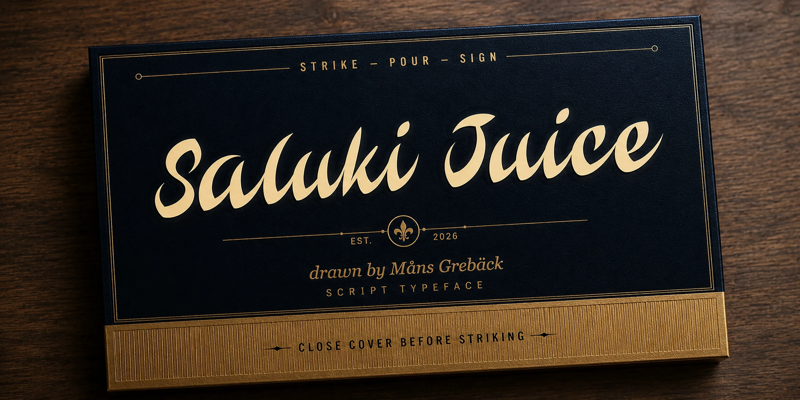
Saluki Juice
Font familySaluki Juice
CreatorMåns Grebäck
NOTE: This font is for PERSONAL USE ONLY! To purchase a commercial license, visit: https://www.mansgreback.com/product/saluki-juice Saluki Juice is a sharp-tipped script with a quick, confident hand. The letters lean forward and run together where they want to, breaking apart where the brush lifts. Strokes are sharp at the entry and tapered at the exit, with the contrast you get from a flat brush turning under pressure. With letters are reminiscent of thorns, it reads best at the size where you'd write it yourself: across the front of a market stall, on the side of a bottle label drawn in a single sitting, on a flyer that doesn't want to look printed. For questions, please visit https://mansgreback.com/faq
Saluki Juice illustration